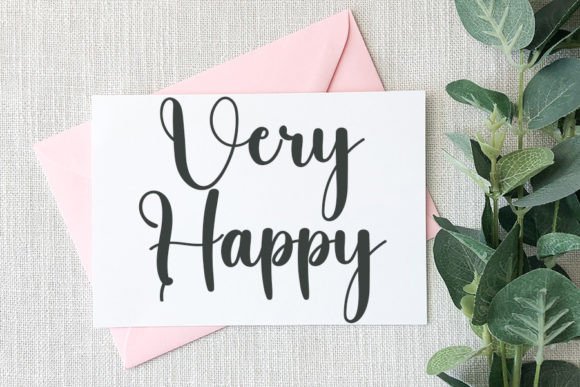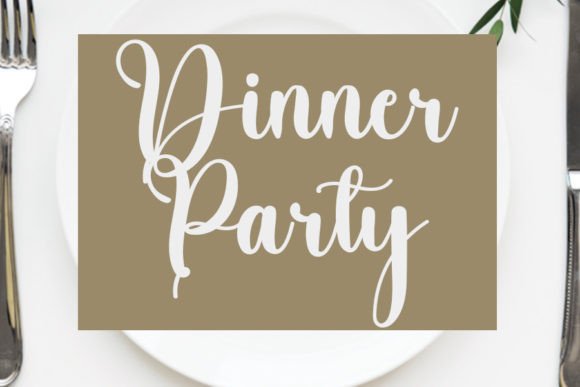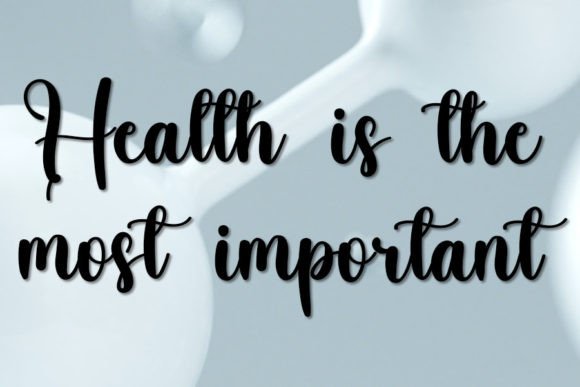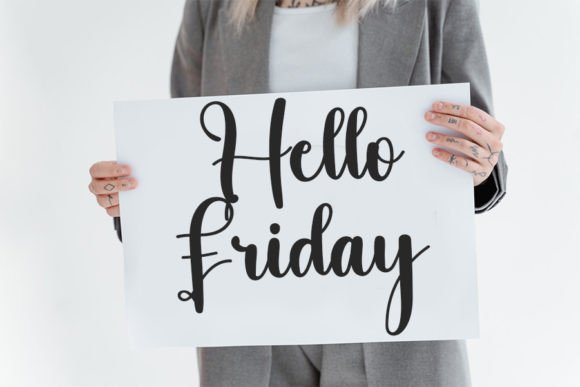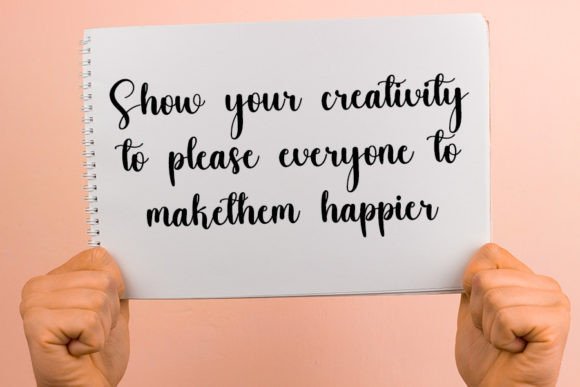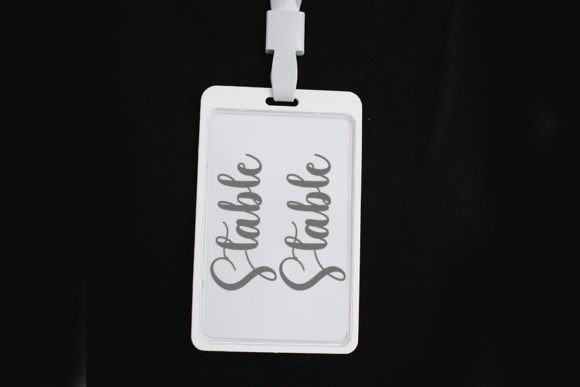
Introduction to Molecule Font
As a designer, there’s nothing quite like the thrill of bringing a creative project to life. You’ve got a vision, a spark of inspiration that refuses to be contained. And then, it happens – you stumble upon the perfect font. One that elevates your design, adds a touch of elegance, and makes your work truly shine. For many designers, that font is the Molecule Font. With its beautiful, refined handwriting style, it’s the perfect addition to any design project.
Key Features of Molecule Font
- High-quality design resource with a unique, futuristic aesthetic
- Transparent background option for seamless integration into creative projects
- Includes a range of styles and weights for added versatility
- Designed for use in digital and print media, with a resolution of 300 DPI or higher
- Perfect for designers and artists working on high-end creative projects
Honest Review: Molecule Font
I recently had the chance to work with the Molecule Font and I must say, it’s been a game-changer for my design projects. This font is a valuable design resource that offers a high quality, unique look for any creative project.
What works well: ✨ The transparent background of the font makes it easy to layer and customize, allowing for endless design possibilities. The font itself is modern and sleek, perfect for making a statement in any design.
Some of the key features of the Molecule Font include:
- High quality, vector format for crisp and clear results
Limitations: ⚠️ While the Molecule Font is generally well-suited for most design projects, it may not be the best choice for projects that require a more traditional or conservative font style.
Overall impression: The Molecule Font is a great addition to any designer’s toolkit. Its unique look and high quality make it a valuable resource for any creative project, and its free download makes it accessible to designers of all levels.
Tips for Getting the Most Out of Molecule Font
Use Molecule Font as a design resource for your next creative project. Experiment with different font sizes, colors, and styles to achieve the desired look. You can also combine Molecule Font with other design elements to create a unique and visually appealing design.
Can I customize the Molecule Font to fit my design needs?